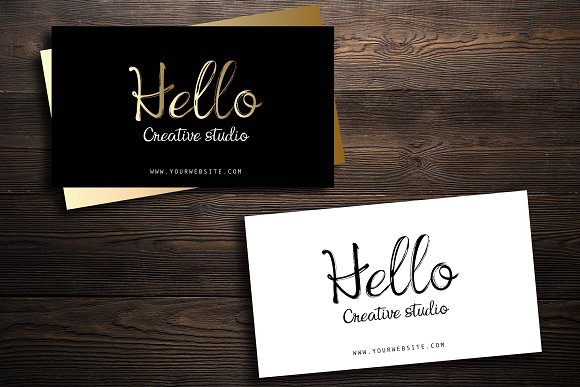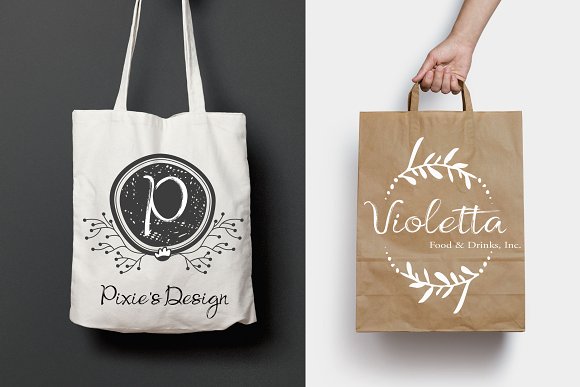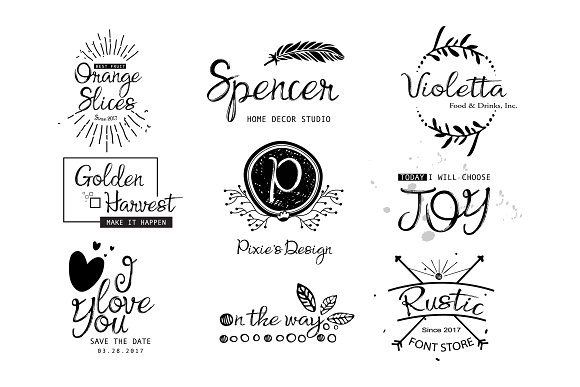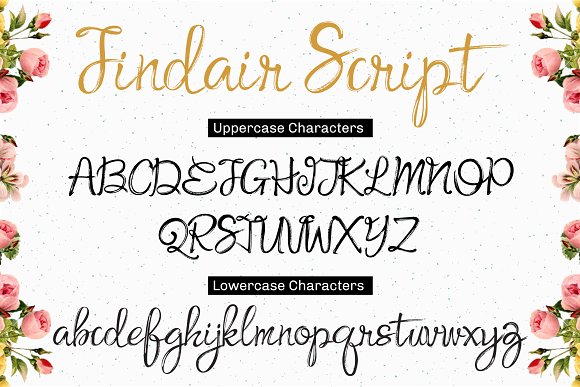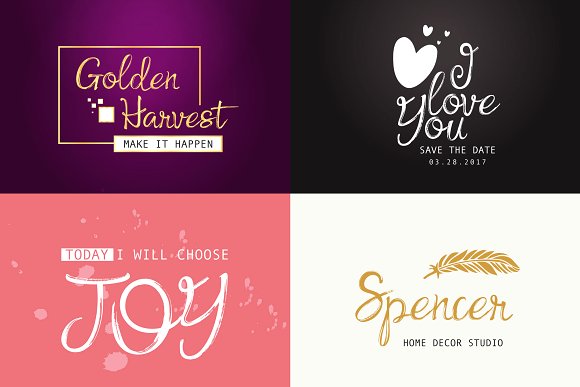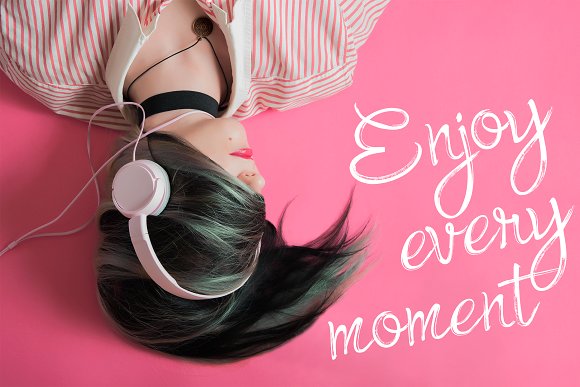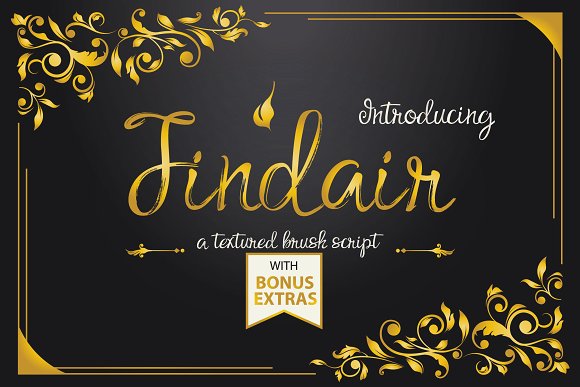
Findair Script Brush Font
ntroducing the new rustic stylish Findair Script with huge extra goodies.
Findair Script! It has two sets: one brush textured style and one plain elegant alternative style both containing uppercase and lowercase characters, numerals, and punctuations, comes with huge bonus pack of 75 vector design illustrations with 2 floral frame vector background and 9 vintage logos. This is perfect for any branding projects, logo, greeting cards, stationery, websites, prints etc..,